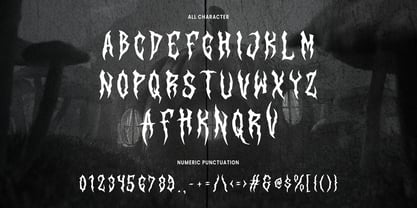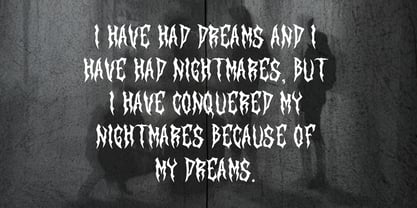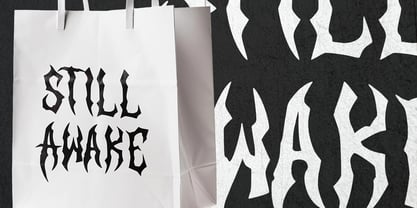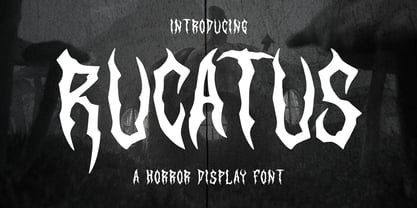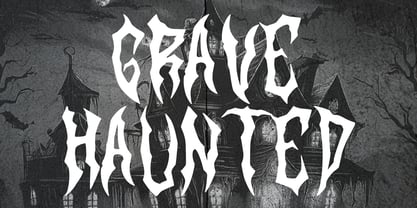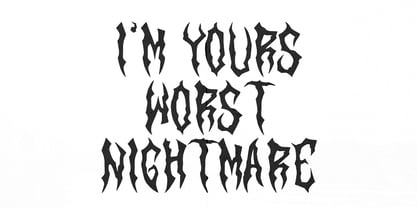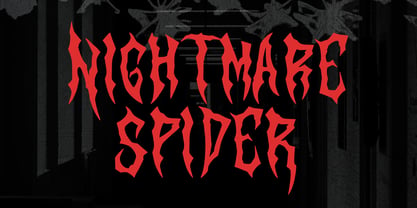
MC Rucatus
by Maulana Creative
The MC Rucatus Font Family was designed by Gilang Maulana and published by Maulana Creative. MC Rucatus contains 1 styles. More about this family
Rucatus is a Horror Vibe Decorative display font. With Bold Sharp stroke, Upright and fun character with a bit of alternates. To give you an extra creative work. Rucatus font support multilingual more than 100+ language. This font is good for logo design, Social media, Movie Titles, Books Titles, a short text even a long text letter and good for your secondary text font with Script. Make a stunning work with Rucatus font.